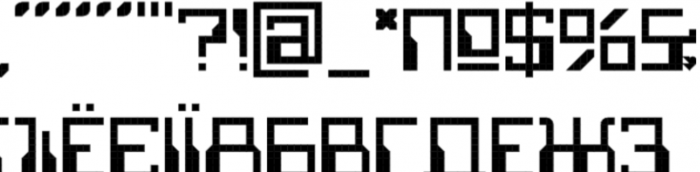
I tried my best doing my font like this but even better.
I ain't very comftorable with my ampersand. It contains somehing inappropliate.
felt like dylacomputer.